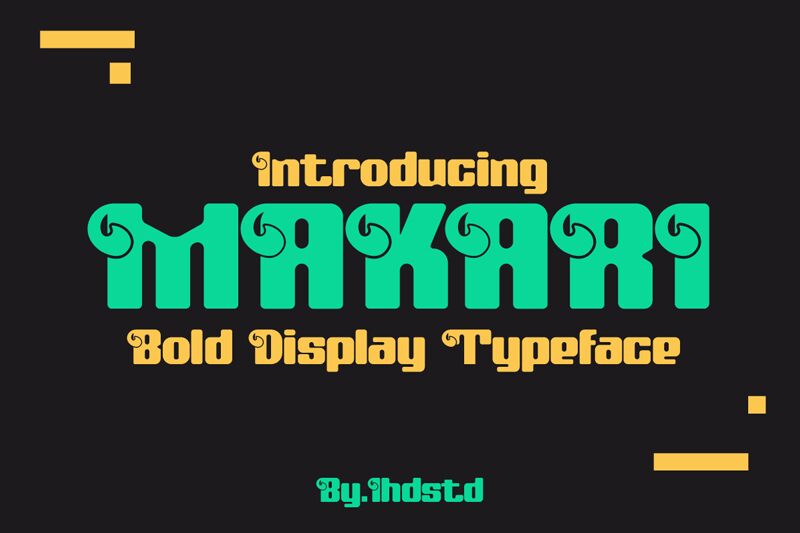
The Makari Bold font, designed by IHD, is an extra-bold display font that exudes a groovy and decorative style. With semi-expanded width, it carries a unique visual appeal that adds a touch of flair to any design project.
This bold typeface is perfect for crafting eye-catching logos and branding materials that demand attention. Its decorative elements make it ideal for creating striking headlines and titles in magazines or posters. Whether you're designing album covers, retro-themed websites, or vibrant packaging, Makari Bold will infuse your projects with a distinctive and captivating aesthetic.